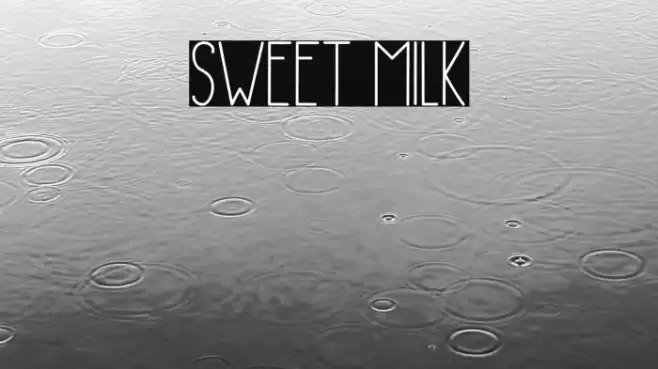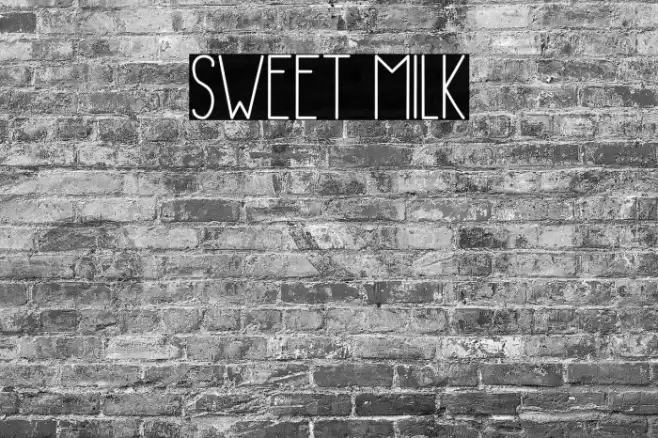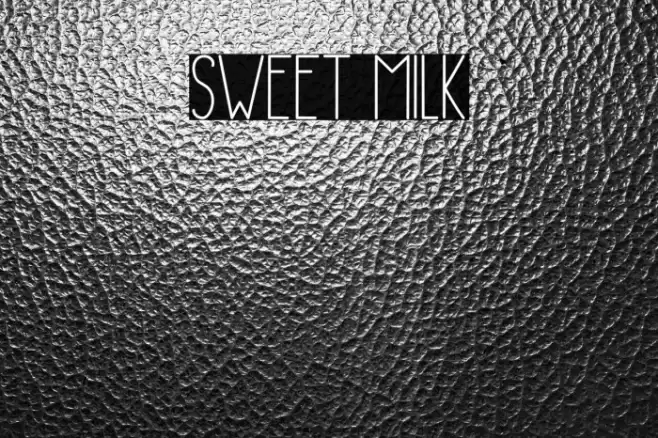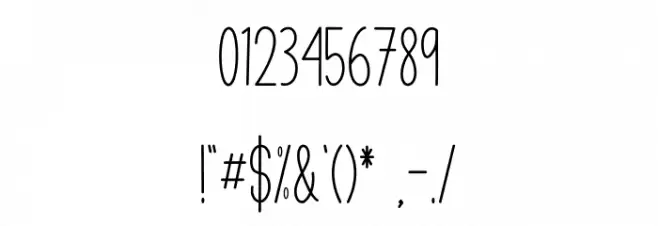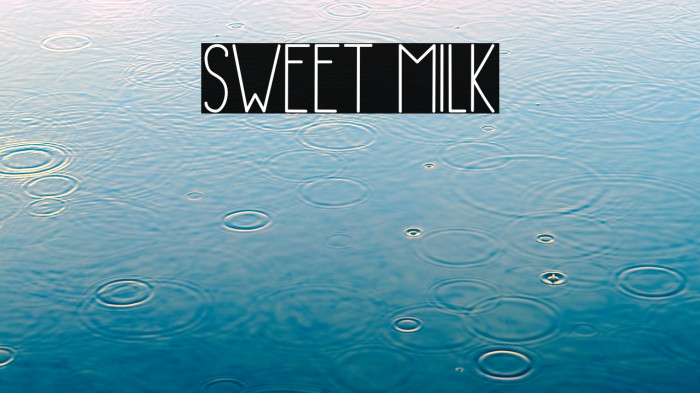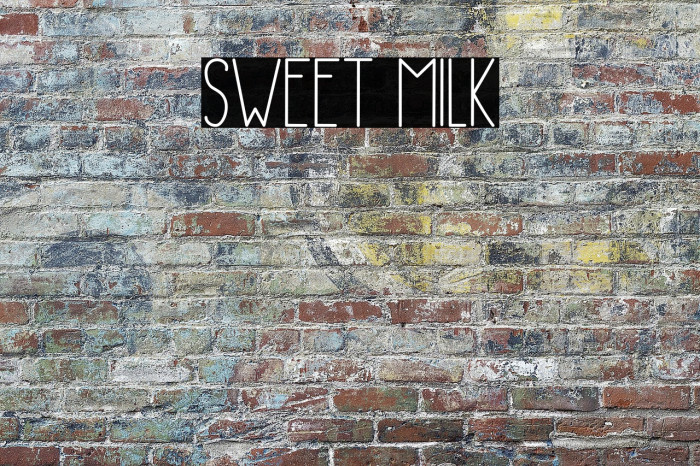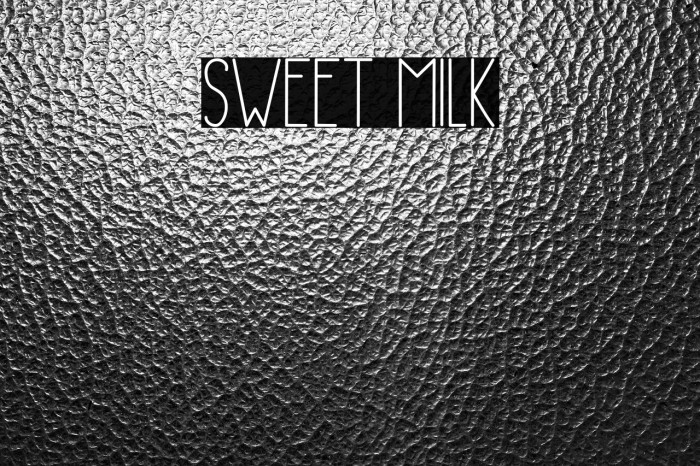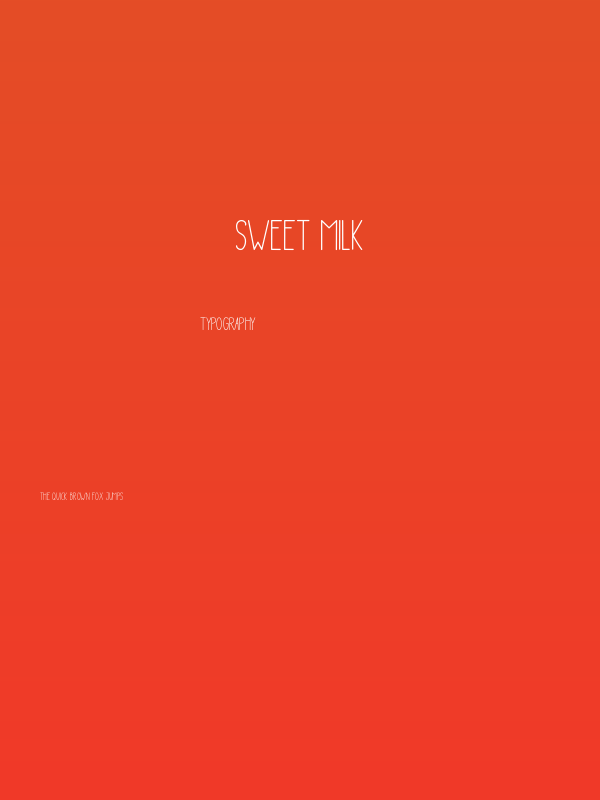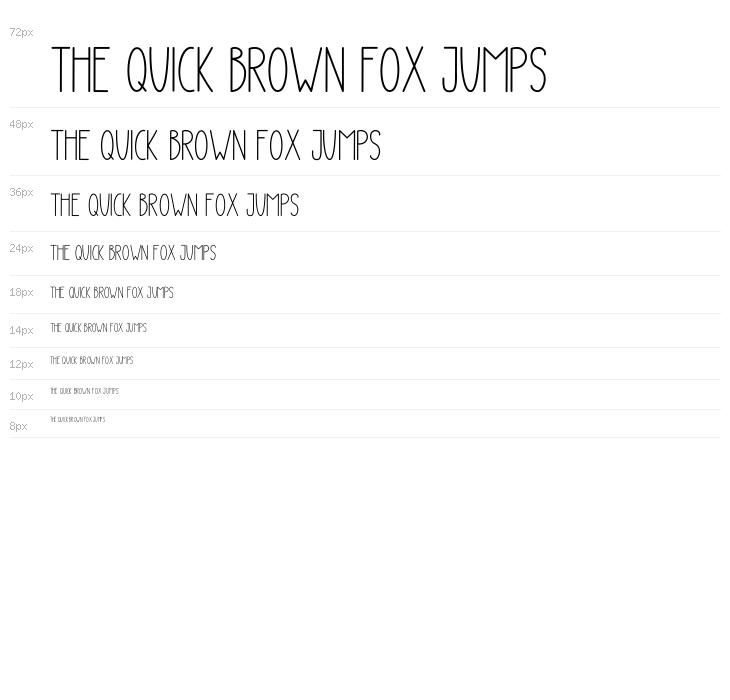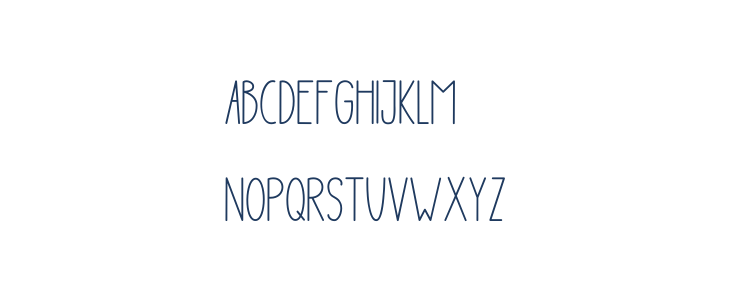
Sweet Milk Font
Sweet Milk Description
This font features a clean and modern aesthetic with tall, narrow letterforms. The characters are evenly spaced, providing a balanced and harmonious appearance. The strokes are consistent in width, giving the font a uniform look. The uppercase letters are slightly taller than the lowercase, adding a subtle distinction. The numerals are clear and easy to read, matching the style of the letters. Special characters are included, maintaining the same sleek design. This font is versatile, suitable for a variety of design projects.
A modern, narrow font with consistent stroke width and balanced spacing from Uncategorized fonts.
- Proposed Projects: Ideal for branding, editorial design, and digital interfaces where a clean, modern look is desired.